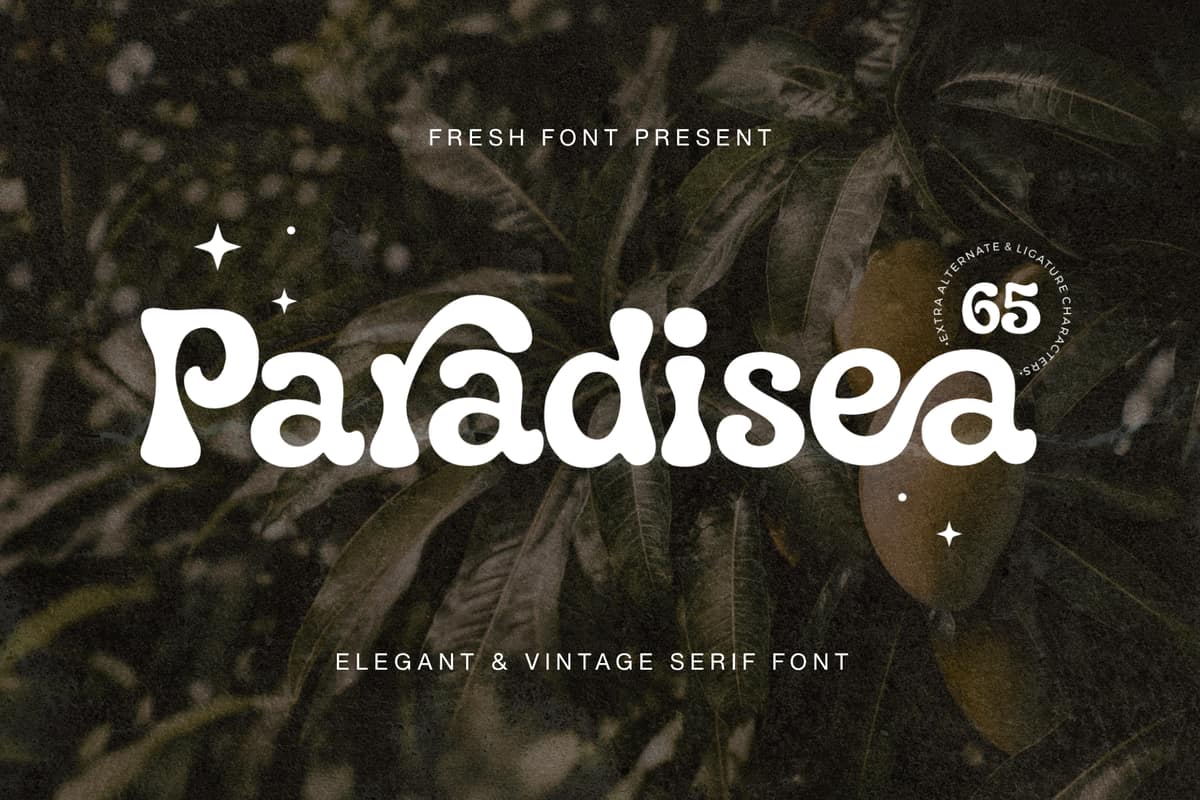
Paradisea
Paradisea is an elegant vintage serif designed for luxury branding, fashion projects, editorial layouts, boutique identity, and sophisticated creative designs. With soft organic curves, graceful serif details, and a timeless nostalgic character, Paradisea adds refined personality to every word. The collection includes uppercase characters, numbers, punctuation, multilingual support, stylish alternate characters, and elegant ligatures for more creative typography options. Perfect for logos, fashi